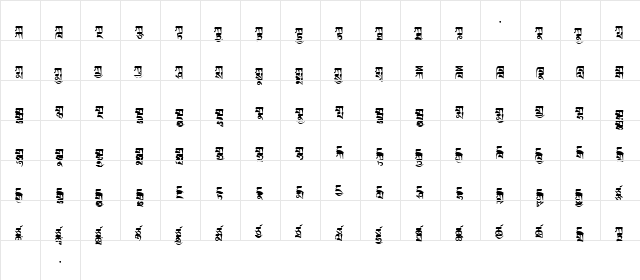
TibetanMachineWeb2 Regular
| Designer | Tony Duff |
Design Context for TibetanMachineWeb2 Typeface
TibetanMachineWeb2 is a composed and adaptable typeface that performs quietly and consistently across a wide range of design contexts.